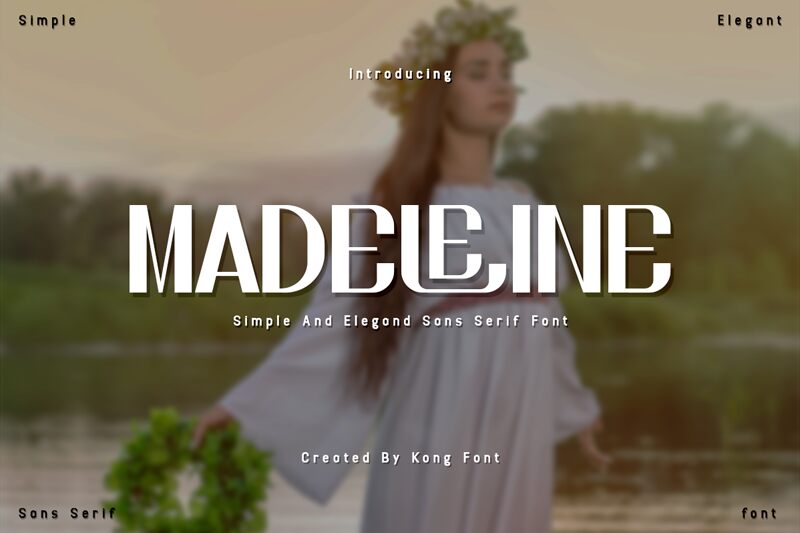
Madeleine font by Kong Font is a free font that beautifully balances style and minimalism. With its modern and geometric essence, this typeface is a sleek choice for any creative endeavor. Madeleine combines sophistication with a contemporary aesthetic, ensuring an appealing visual flow and a clean finish. It is inspired by the retro visual characteristic suitable for every project that deals with appeal.